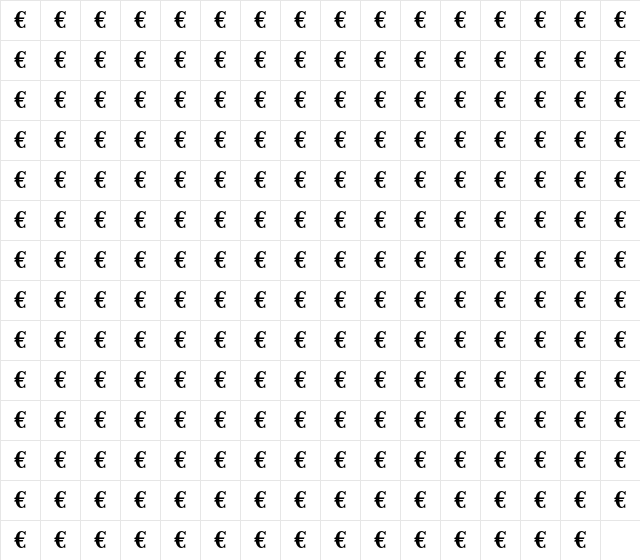
Euro Serif Bold
Design Context for Euro Serif Typeface
Euro Serif brings classic typographic sensibility to the table — its serifs and measured letterforms reflect centuries of print heritage. Its bold stroke weight gives it real presence on the page.
Pro Tip: Set Euro Serif with slightly loose tracking in headlines to let each letterform's detail read clearly at display sizes.